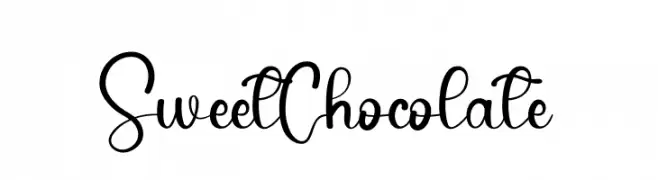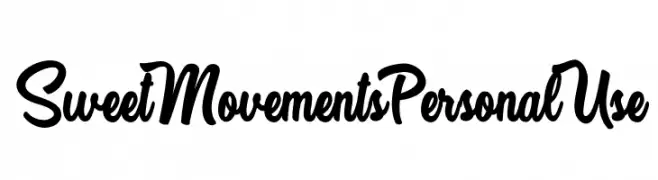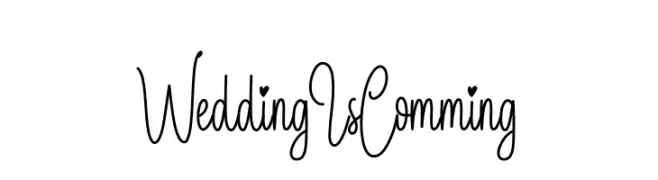
A bold, flowing script font with elegant, cursive letterforms.
A lively and expressive script font with flowing, interconnected letters.
( Fonts by Danar Nugroho )
A playful, rounded font with a whimsical and creative style.
( Fonts by Ainun Jinan )
A playful and elegant script font with flowing, cursive letters.
A flowing, cursive script font with elegant, interconnected strokes.
( Fonts by Scratchones )
A whimsical handwritten font with playful loops and flowing letterforms.
( Fonts by Etik Fatimah )
A playful, handwritten script font with elegant loops and smooth curves.
( Fonts by Vunira Design )
A lively, flowing script font with elegant curves and a handwritten appeal.
( Fonts by Denis Denis )
Whimsical and flowing handwritten script font.
( Fonts by Perspectype Studio )
Casual, modern handwritten script with playful loops.